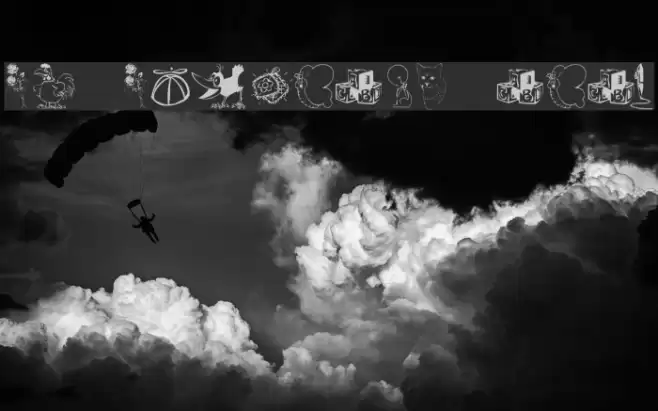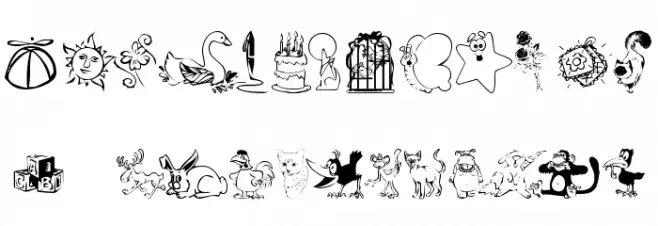
KR Katlings Nine Font
KR Katlings Nine Description
A playful and whimsical dingbat font featuring a variety of hand-drawn cartoon illustrations, including animals, objects, and playful motifs. The glyphs are outlined with varying line thicknesses and have a childlike, sketchy quality.
A cartoon-style dingbat font with playful, hand-drawn illustrations from Uncategorized fonts.
- Proposed Projects: Children's books, educational materials, party invitations, scrapbooking, playful branding.
- Overall Style: Playful, Whimsical, Childlike
- Use Case: Decorative elements, Icons, Themed graphics